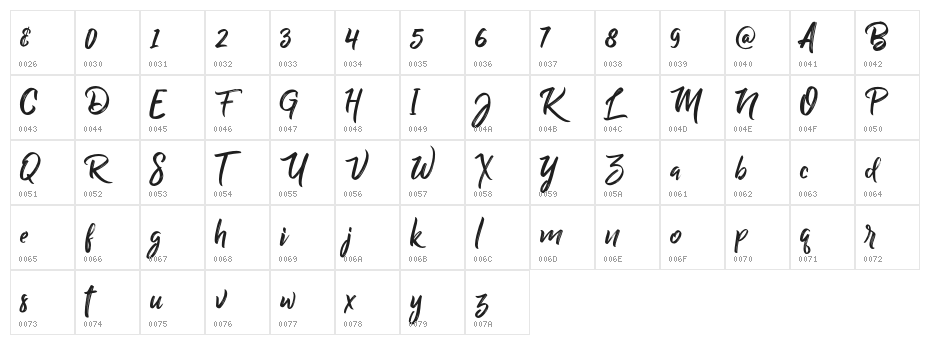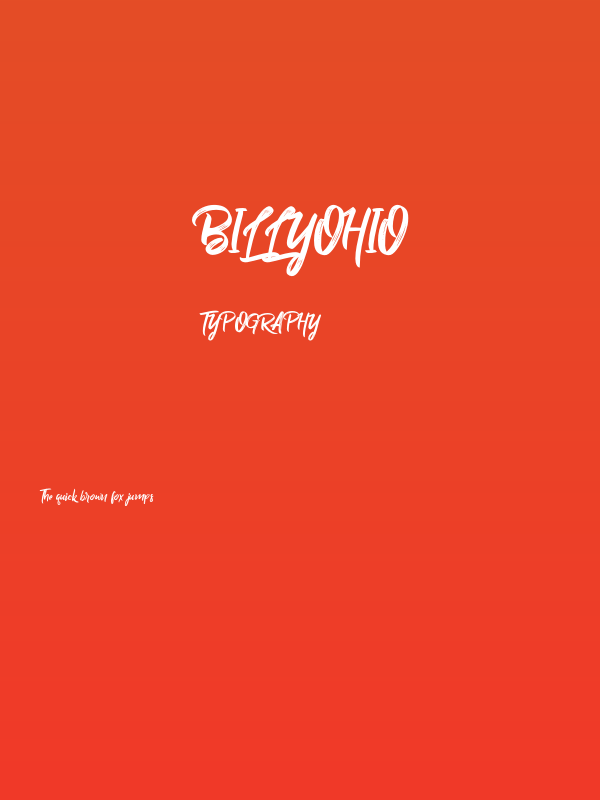
BillyOhio Font
BillyOhio Description
This font features a bold and expressive handwritten style, characterized by its fluid and dynamic strokes. The letters exhibit a sense of motion and energy, with varying thickness that adds a lively and artistic flair. The uppercase letters are particularly striking, with dramatic curves and loops, while the lowercase letters maintain a consistent flow. The numerals and special characters are equally stylized, ensuring a cohesive look across all elements. This font is ideal for projects that require a personal touch or a creative edge.
| Use Case | Logos, Headlines, Posters |
| Proposed Projects | Ideal for branding, invitations, posters, and artistic projects that require a personal and creative touch. |